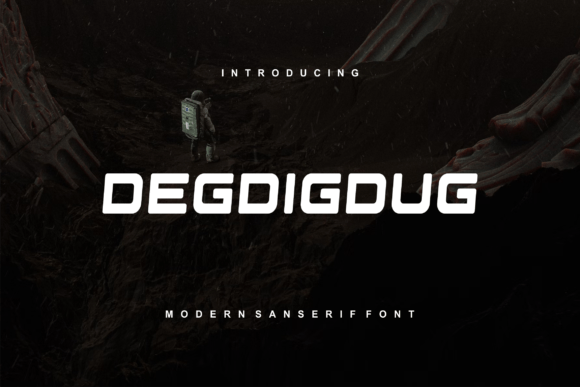
Introducing Degdigdug: The Ultimate Clean and Modern Sans-Serif Font
In the world of typography, a good font can make all the difference in the success of a design project. Whether you’re a graphic designer, a crafty DIY enthusiast, or a digital content creator, finding the right font can be a daunting task. That’s why we’re excited to introduce Degdigdug, a clean, modern sans-serif font that’s perfect for both casual and professional use.
What is Degdigdug?
Degdigdug is a fresh and vibrant font that’s designed to bring a playful and friendly vibe to your designs. Its simple lines and rounded edges make it easy to read and versatile enough to be used in a wide range of applications. Whether you’re creating a logo, a brochure, a website, or a social media post, Degdigdug is the perfect choice.
Key Features of Degdigdug
- Clean and Modern Design: Degdigdug boasts a clean and modern sans-serif design that’s perfect for contemporary designs.
- Playful and Friendly Vibe: The font’s rounded edges and simple lines give it a playful and friendly feel that’s sure to engage your audience.
- Ease of Readability: Degdigdug is designed to be easy to read, making it perfect for body text, headings, and titles.
- Versatility: The font is versatile enough to be used in both casual and professional settings, from social media posts to corporate branding.
Why Choose Degdigdug?
With so many fonts to choose from, why should you choose Degdigdug? Here are just a few reasons:
- Uniqueness: Degdigdug is a unique font that will help your designs stand out from the crowd.
- Legibility: The font’s clean design and rounded edges make it easy to read, even at small sizes.
- Flexibility: Degdigdug can be used in a wide range of applications, from digital media to print materials.
- Timelessness: The font’s simple design ensures that it will remain relevant for years to come.
How to Use Degdigdug
Degdigdug is a versatile font that can be used in a variety of ways. Here are a few ideas to get you started:
- Branding: Use Degdigdug as a logo font or for corporate branding to give your business a modern and friendly face.
- Web Design: The font is perfect for web design, from headings and titles to body text and UI elements.
- Print Materials: Degdigdug can be used in print materials such as brochures, flyers, and posters.
- Social Media: Use the font to create engaging social media posts that will stand out from the crowd.
In conclusion, Degdigdug is a clean, modern sans-serif font that’s perfect for designers and crafters looking for a playful and friendly vibe. Its simple lines and rounded edges make it easy to read and versatile enough to be used in a wide range of applications. Whether you’re creating a logo, a website, or a social media post, Degdigdug is the perfect choice. So why not give it a try and see how it can elevate your designs?
Degdigdug is a versatile and modern font that’s sure to take your designs to the next level. With its clean design, playful vibe, and ease of readability, it’s the perfect choice for designers and crafters looking for a reliable and stylish font.